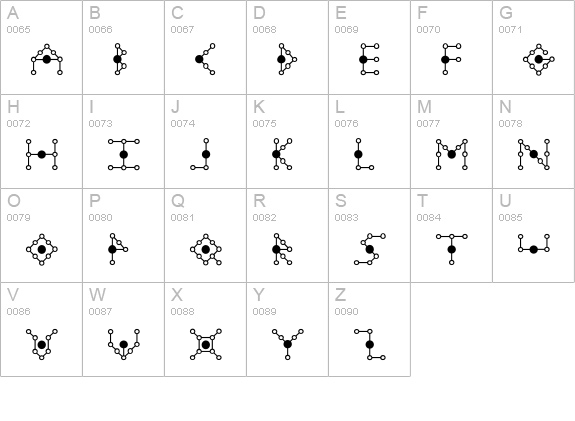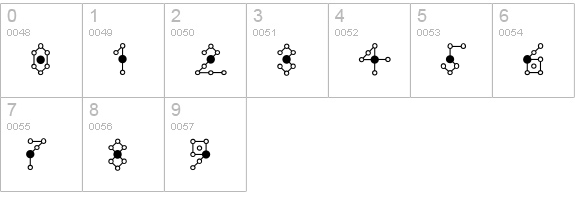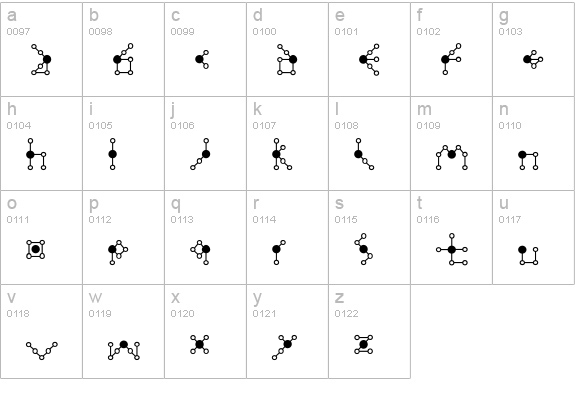
Molecular Font Details
Molecular font is a modern and sleek typeface that exudes a sense of sophistication and innovation. With its clean lines and geometric shapes, this font is perfect for projects that require a contemporary and professional look. The Molecular font family includes a variety of weights and styles, making it versatile for a wide range of design applications. The best part about Molecular font is that it is completely free to download at FontsMarket.com. Whether you're working on a branding project, website design, or any other creative endeavor, Molecular font is a fantastic choice that will elevate your work to the next level. Don't miss out on the opportunity to add this stylish and elegant font to your collection today.